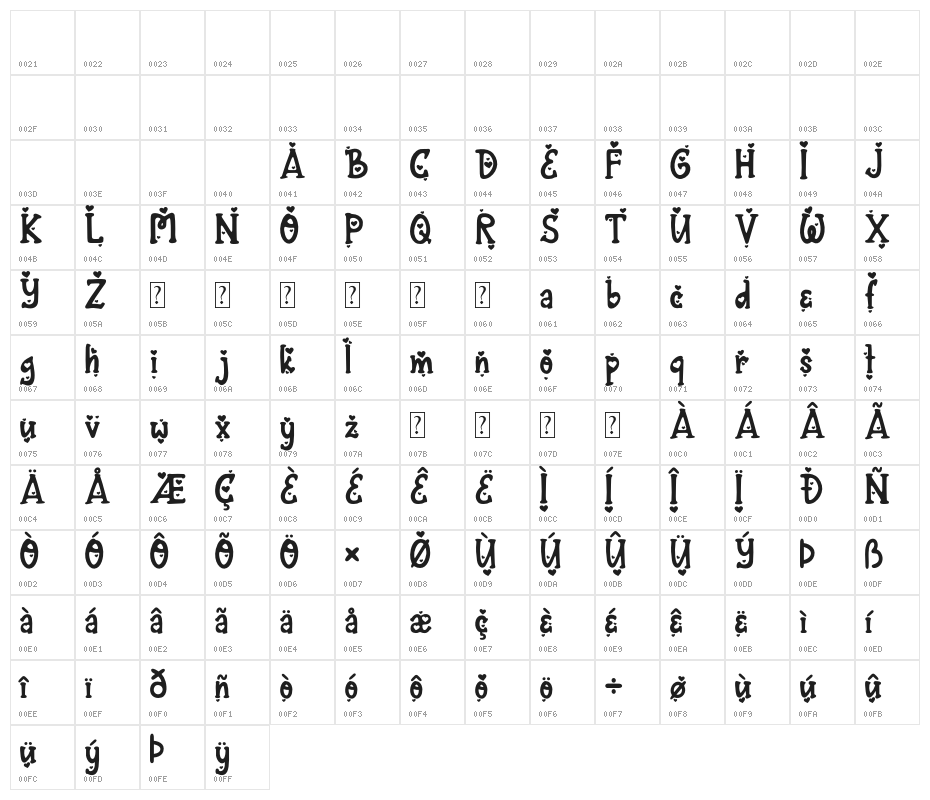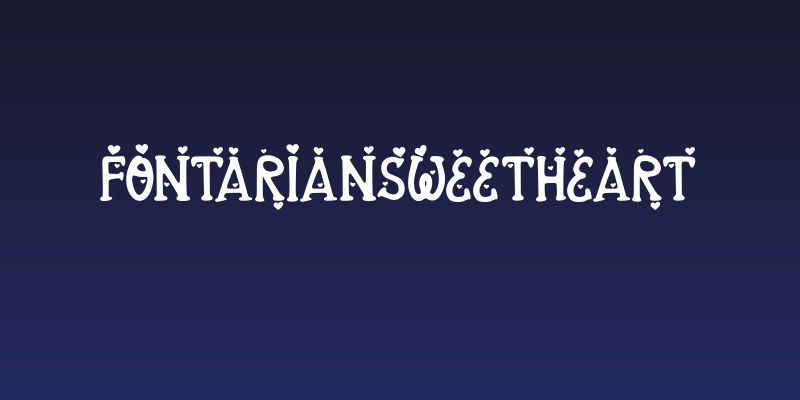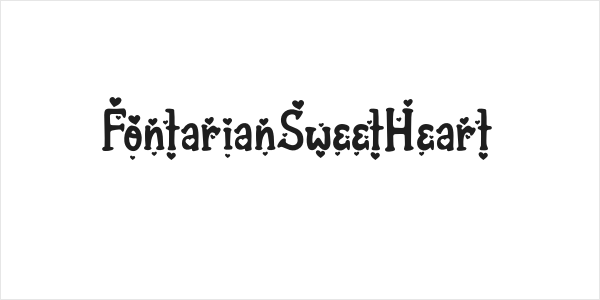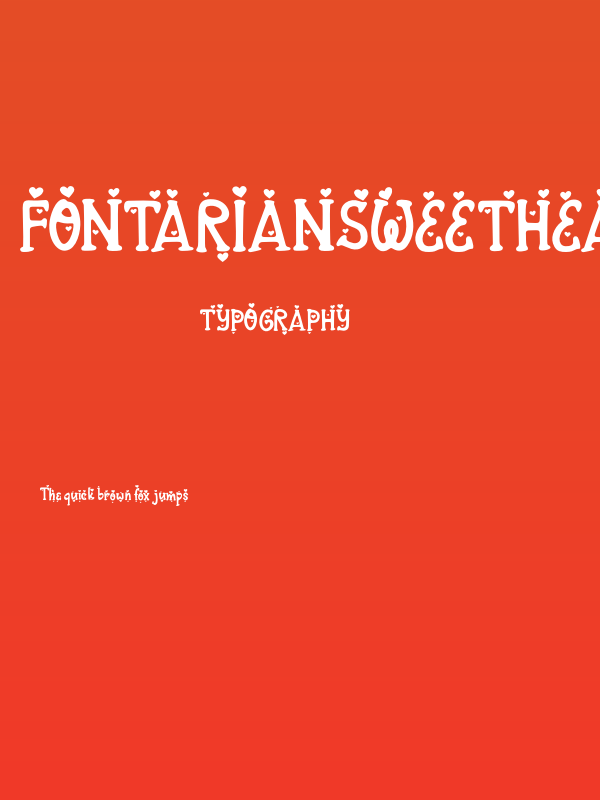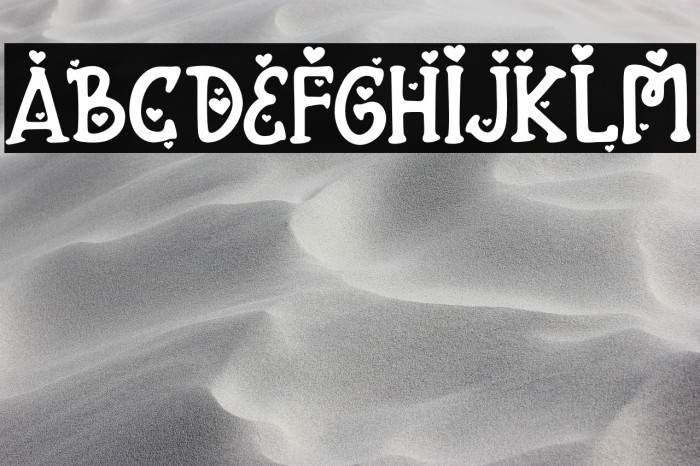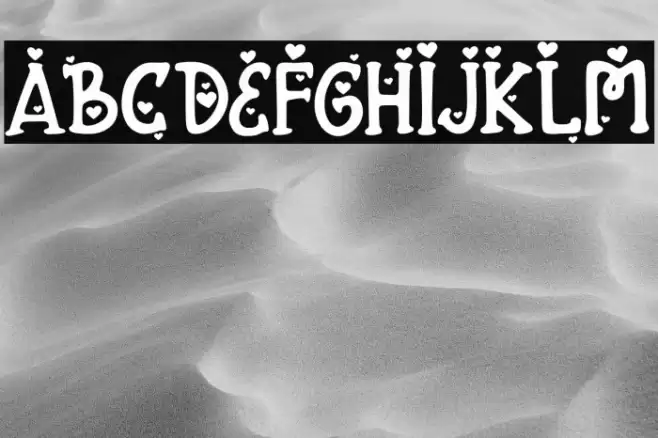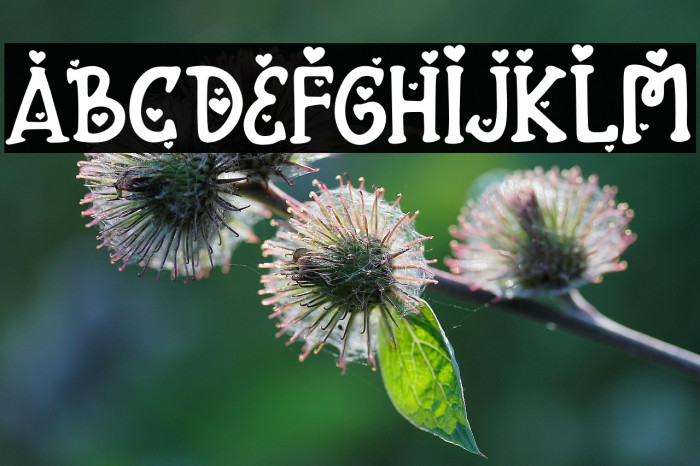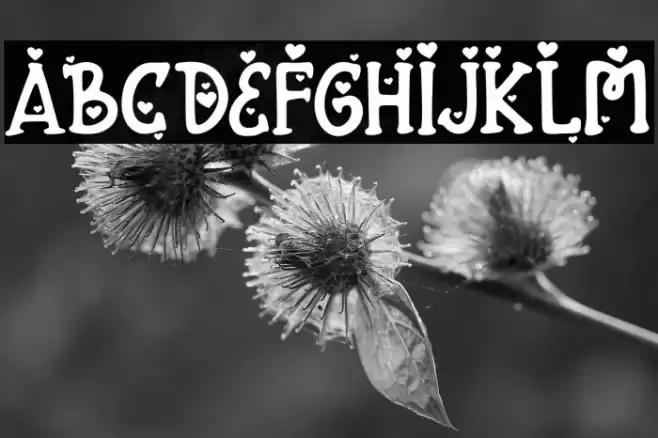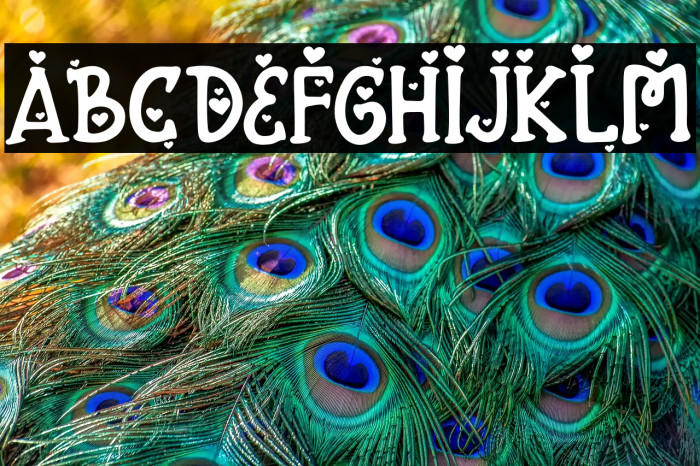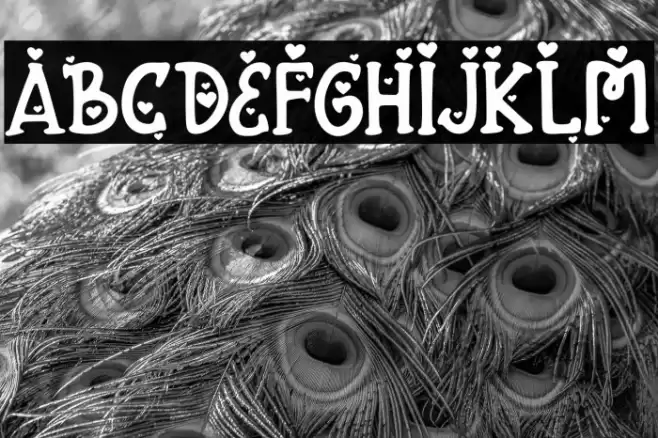
FontarianSweetHeart Font
FontarianSweetHeart Description
This whimsical and playful font features heart-shaped embellishments integrated into the design of each character, creating a charming and romantic aesthetic. The letters are bold and rounded, with a consistent stroke width that gives the font a cohesive look. The uppercase and lowercase letters maintain a similar style, with slight variations to enhance readability. The inclusion of diacritical marks and special characters ensures versatility in various languages and contexts. Overall, the font exudes a sense of fun and affection, making it ideal for projects that require a touch of warmth and personality.